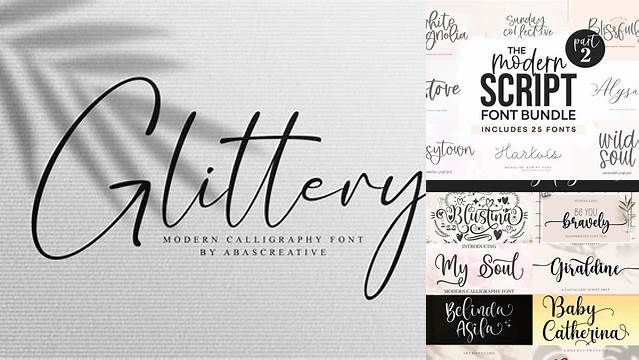
Free Modern Script Fonts: Download Now!
Hey guys! Are you on the hunt for some stunning, free modern script fonts to spice up your design projects? You've landed in the right place! In this article, we're diving deep into the world of modern script fonts, exploring everything from where to find them to how to use them effectively. We'll cover a wide array of subtopics, ensuring you have a comprehensive understanding and a treasure trove of options to choose from. So, grab a cup of coffee, get comfy, and let's get started!
1. What are Modern Script Fonts?
Let's kick things off by understanding exactly what modern script fonts are. These fonts are characterized by their flowing, handwritten style, often mimicking calligraphy or cursive writing. What sets them apart from traditional scripts is their contemporary twist – cleaner lines, unique letterforms, and a generally more stylish and updated feel. Modern script fonts are incredibly versatile, making them a fantastic choice for a variety of design projects, from logos and branding to invitations and social media graphics. They bring a touch of elegance and personality that can really elevate your work. The beauty of modern script fonts lies in their ability to be both eye-catching and readable, a delicate balance that many designers strive for. Whether you're looking for something bold and dramatic or subtle and sophisticated, there's a modern script font out there for you. They're constantly evolving too, with new variations and styles emerging all the time, keeping the design landscape fresh and exciting. Think about how these fonts can transform a simple text-based design into a work of art, adding a human touch and a sense of craftsmanship. That’s the magic of modern script fonts, and it’s why they’re so popular in the design world today.
6. Best Uses for Modern Script Fonts
So, you've got your modern script fonts installed and ready to go – now what? Knowing how to use them effectively is just as important as finding the right font. These fonts excel in a variety of design applications, but they're not a one-size-fits-all solution. They're particularly well-suited for logos, branding, and headings where you want to convey elegance, creativity, or a personal touch. Think wedding invitations, boutique logos, or inspirational quote graphics. They also work beautifully in social media posts and website headers, adding a touch of sophistication. However, modern script fonts can be challenging to read in large blocks of text, so it's generally best to avoid using them for body copy. Pair them with a clean, legible sans-serif font for body text to create a balanced and visually appealing design. Consider the overall tone and message of your project when choosing a modern script font. A delicate, flowing script might be perfect for a wedding invitation, but a bolder, more assertive script might be better suited for a fashion brand logo. Experiment with different sizes, weights, and letter spacing to see what works best for your specific design. Mastering the art of using modern script fonts effectively will elevate your designs and help you communicate your message with style.
7. Pairing Modern Script Fonts with Other Fonts
Pairing fonts is an art form in itself, and it's crucial for creating visually harmonious and effective designs. When working with modern script fonts, the key is to choose a secondary font that complements the script without overpowering it. Generally, sans-serif fonts are a safe bet for pairing with modern script fonts. Their clean, simple lines provide a nice contrast to the flowing, decorative script. Think about pairing a delicate script with a classic sans-serif like Open Sans or Montserrat. For a bolder script, you might consider a slightly more robust sans-serif like Roboto or Lato. Serif fonts can also work in some cases, but it's important to choose a serif that isn't too ornate or distracting. A simple serif like Merriweather or Playfair Display can pair beautifully with a modern script, creating a sophisticated and balanced look. Avoid pairing two very decorative fonts together, as this can create a cluttered and overwhelming design. The goal is to create a visual hierarchy, where the script font serves as the focal point and the secondary font provides support and readability. Experiment with different font pairings until you find a combination that feels just right for your project. Remember, the best font pairings enhance the overall message and aesthetic of your design.
8. Using Modern Script Fonts in Logos
Logos are a fantastic place to showcase the elegance and personality of modern script fonts. A well-chosen script font can give a logo a unique and memorable touch, conveying a sense of sophistication, creativity, or personal connection. Think about luxury brands, boutique businesses, or creative professionals – these are the types of logos where a modern script font can truly shine. However, it's crucial to use script fonts thoughtfully in logo design. Readability is paramount, so make sure the script is clear and easy to understand, even at smaller sizes. Avoid overly ornate or complex scripts that might become illegible when scaled down. Consider the overall brand identity and choose a script that aligns with the brand's values and personality. A delicate, flowing script might be perfect for a wedding planner, while a bolder, more assertive script might be better suited for a fashion brand. Think about how the script interacts with other elements of the logo, such as icons or taglines. Pair the script with a clean, legible sans-serif font for any supporting text to ensure clarity. Remember, a logo is the face of a brand, so it's essential to choose a font that makes a positive and lasting impression. When used effectively, modern script fonts can elevate a logo and help it stand out from the crowd.
9. Modern Script Fonts for Branding
Beyond logos, modern script fonts play a significant role in overall branding. They can be used across various touchpoints to create a cohesive and memorable brand identity. Think about how a consistent use of a particular script font can reinforce a brand's personality and values, from website headers and social media graphics to business cards and marketing materials. When using modern script fonts for branding, consider the overall tone and message you want to convey. Is your brand elegant and sophisticated? Fun and playful? Modern and edgy? Choose a script font that aligns with these qualities. Think about how the script will interact with other visual elements, such as colors, images, and logos. Consistency is key, so establish clear guidelines for how and where the script font should be used across different platforms and materials. Consider the readability of the script in different contexts, and make sure it's always clear and legible. Pair the script with a complementary font for body text and other supporting elements to create a balanced and harmonious look. Remember, branding is about creating a consistent and recognizable identity, and modern script fonts can be a powerful tool in achieving this goal. By using them thoughtfully and strategically, you can elevate your brand and make a lasting impression on your audience.
10. Designing Wedding Invitations with Script Fonts
Wedding invitations are a classic application for modern script fonts. These fonts evoke a sense of elegance, romance, and celebration, making them a perfect choice for setting the tone for a special day. A beautiful script font can transform a simple invitation into a cherished keepsake. When designing wedding invitations with modern script fonts, consider the overall style of the wedding. A delicate, flowing script might be perfect for a traditional or classic wedding, while a bolder, more modern script might be better suited for a contemporary celebration. Think about the colors and other design elements you're using, and choose a script that complements them. Ensure the script is legible, especially for important details like the date, time, and location. Pair the script with a clean, readable font for the body text and other supporting information. Consider using different weights or sizes of the script to create visual hierarchy and highlight key elements. Don't be afraid to experiment with different layouts and compositions to create a unique and memorable invitation. Adding embellishments like flourishes or illustrations can further enhance the elegance of the design. Remember, a wedding invitation is the first impression guests will have of the wedding, so it's important to make it a beautiful and meaningful one. Modern script fonts can help you achieve this, adding a touch of sophistication and personality to your special day.
11. Using Script Fonts in Social Media Graphics
Social media is a visually driven platform, and modern script fonts can be a fantastic way to make your graphics stand out. They add a touch of personality and elegance that can capture attention in a busy feed. Think about using script fonts for quotes, headlines, or branding elements in your social media posts. When using modern script fonts in social media graphics, consider the overall aesthetic of your brand and the platform you're using. A delicate, flowing script might be perfect for Instagram, while a bolder script might be better suited for Facebook or Twitter. Ensure the script is legible, especially on smaller screens. Use a contrasting color to make the script stand out against the background. Pair the script with a clean, readable font for any supporting text. Consider using animation or motion graphics to add visual interest to your script fonts. Experiment with different layouts and compositions to create eye-catching graphics. Remember, social media is about engaging your audience, and modern script fonts can help you do just that. By using them effectively, you can create visually appealing content that captures attention and reinforces your brand message.
12. Free Calligraphy Script Fonts
When we talk about modern script fonts, it's hard not to think about calligraphy. Calligraphy-inspired scripts are a popular choice for adding an elegant and handcrafted touch to designs. The good news is, there are plenty of free calligraphy script fonts available that can give you that beautiful, hand-lettered look without breaking the bank. These fonts often feature flowing strokes, elegant flourishes, and a sense of traditional artistry. They're perfect for wedding invitations, logos, headings, and any design that needs a touch of sophistication. When searching for free calligraphy script fonts, be sure to check the licensing terms, as some may be free for personal use only. Websites like Google Fonts, Font Squirrel, and DaFont are great places to start your search. Look for keywords like "calligraphy," "handwritten," or "brush script" to narrow down your options. Remember to consider the readability of the font, especially if you're using it for body text. Pair it with a clean, simple font for a balanced look. With a little searching, you can find a beautiful free calligraphy script font that perfectly captures the elegance and artistry you're looking for.
13. Elegant Script Fonts for Free
For projects that demand a touch of sophistication and grace, elegant script fonts are the way to go. These fonts often feature delicate strokes, graceful curves, and a timeless appeal. The best part? You don't have to spend a fortune to access these beauties. There are numerous elegant script fonts for free that can elevate your designs without emptying your wallet. These fonts are ideal for wedding invitations, logos, branding, and any project where you want to convey a sense of refinement and luxury. When searching for elegant script fonts, consider the overall style and tone of your project. A flowing, cursive script might be perfect for a romantic wedding invitation, while a more structured script might be better suited for a high-end brand logo. Pay attention to the details, such as the thickness of the strokes, the presence of flourishes, and the overall legibility of the font. Pair your elegant script with a clean, simple font for a balanced and sophisticated look. Remember to check the licensing terms before using any font, especially for commercial projects. With a little effort, you can find the perfect free elegant script font to add a touch of class to your designs.
14. Free Handwritten Script Fonts
If you're aiming for a personal and approachable feel, free handwritten script fonts are an excellent choice. These fonts mimic the look of actual handwriting, adding a human touch to your designs. They're perfect for projects where you want to convey warmth, authenticity, and a sense of informality. Think of social media graphics, blog headers, or personalized cards. There are tons of free handwritten script fonts available online, ranging from casual and playful to elegant and refined. When selecting a handwritten script font, consider the overall tone of your project and the message you want to convey. A messy, informal script might be great for a blog about everyday life, while a more polished script might be better suited for a small business website. Pay attention to the legibility of the font, as some handwritten scripts can be difficult to read, especially in large blocks of text. Pair your handwritten script with a clean, simple font for body text to ensure readability. Don't be afraid to experiment with different styles and weights to find the perfect fit for your project. With the right free handwritten script font, you can add a personal touch to your designs and connect with your audience on a deeper level.
15. Bold Script Fonts Free
Sometimes, you need a font that makes a statement. That's where bold script fonts come in. These fonts have a strong, confident presence, making them perfect for headlines, logos, and other design elements where you want to grab attention. And guess what? You can find some fantastic bold script fonts free of charge! These fonts often feature thick strokes, strong curves, and a generally impactful design. They're ideal for projects where you want to convey energy, excitement, or a sense of authority. Think of branding for a fitness studio, a restaurant logo, or a social media campaign. When choosing a bold script font, consider the overall style of your project and the message you want to send. A bold script can be a powerful tool, but it's important to use it judiciously. Avoid using it for large blocks of text, as it can be overwhelming and difficult to read. Pair your bold script with a clean, simple font for body text to create a balanced look. Experiment with different sizes and weights to find the perfect balance. With the right free bold script font, you can make a big impact and create designs that truly stand out.
16. Cursive Script Fonts for Free
Cursive script fonts are another popular choice for adding elegance and flow to your designs. These fonts mimic the look of cursive handwriting, with connected letters and graceful curves. The good news is, there's a wide variety of cursive script fonts for free available online, making it easy to add this classic style to your projects without spending a dime. Cursive scripts are perfect for wedding invitations, logos, headings, and any design where you want to convey a sense of sophistication and artistry. When selecting a cursive script font, consider the overall tone of your project and the message you want to convey. A delicate, flowing cursive might be perfect for a wedding invitation, while a bolder cursive might be better suited for a logo. Pay attention to the legibility of the font, as some cursive scripts can be difficult to read, especially in large blocks of text. Pair your cursive script with a clean, simple font for body text to ensure readability. Experiment with different weights and styles to find the perfect fit for your project. With a beautiful free cursive script font, you can add a touch of timeless elegance to your designs.
17. Unique Modern Script Fonts Free
Tired of the same old fonts? Looking for something that truly stands out? Then you're in the right place! There are tons of unique modern script fonts available for free that can add a special touch to your projects. These fonts often feature unexpected letterforms, creative flourishes, and a generally distinctive style. They're perfect for designs where you want to break the mold and make a lasting impression. Think of branding for a creative agency, a website header, or a social media campaign. When searching for unique modern script fonts free, be open to exploring different styles and approaches. Look for fonts that incorporate interesting details or unconventional shapes. Consider the overall tone of your project and choose a font that aligns with your message. Pay attention to the legibility of the font, as some unique scripts can be challenging to read, especially in large blocks of text. Pair your unique script with a clean, simple font for body text to ensure readability. Don't be afraid to experiment and have fun with it! With a little searching, you can find a free unique modern script font that truly sets your designs apart.
18. Free Script Fonts for Commercial Use
If you're using fonts for business purposes, it's crucial to ensure they're licensed for commercial use. The good news is, there's a wealth of free script fonts for commercial use available online, allowing you to create professional-quality designs without worrying about licensing fees. These fonts can be used in logos, branding materials, websites, and any other project where you're generating revenue. When searching for free script fonts for commercial use, pay close attention to the licensing terms. Look for phrases like "free for commercial use" or "100% free." Websites like Font Squirrel and Google Fonts are excellent resources for finding fonts with clear commercial licenses. DaFont also has a large selection, but be sure to check the individual license for each font. Consider the overall style of your project and choose a script font that aligns with your brand's identity. Ensure the font is legible, especially in logos and branding materials. Pair your script font with a clean, simple font for body text to create a balanced look. Remember, using fonts legally is essential for professional design. With the right free script font for commercial use, you can create stunning designs that are both beautiful and compliant.
19. Best Free Script Fonts for Logos
Logos are a crucial part of branding, and choosing the right font is essential. Free script fonts for logos can add a touch of personality and elegance, making your brand stand out. A well-chosen script can convey a sense of sophistication, creativity, or personal connection. When selecting a best free script fonts for logos, consider your brand's identity and target audience. A delicate, flowing script might be perfect for a wedding planner, while a bolder script might be better suited for a fashion brand. Ensure the script is legible, even at small sizes. Logos need to be versatile and readable across various platforms and sizes. Avoid overly ornate or complex scripts that might become illegible when scaled down. Consider how the script interacts with other elements of the logo, such as icons or taglines. Pair the script with a clean, legible font for any supporting text. Remember, your logo is the face of your brand, so it's important to choose a font that makes a positive and lasting impression. With the right free script font for logos, you can create a memorable and effective brand identity.
20. Free Script Fonts for Websites
Your website's typography plays a significant role in its overall design and user experience. Free script fonts for websites can add a touch of personality and visual interest, but it's crucial to use them strategically. A well-chosen script can enhance your website's branding and make it more memorable. When selecting free script fonts for websites, consider the overall style and tone of your site. A delicate script might be perfect for a wedding photography website, while a bolder script might be better suited for a creative agency. Ensure the script is legible, especially for headlines and calls to action. Readability is paramount for web design. Avoid using script fonts for large blocks of body text, as they can be difficult to read online. Pair your script font with a clean, readable sans-serif font for body text. Consider using different weights and sizes of the script to create visual hierarchy. Optimize your fonts for web use to ensure fast loading times. Remember, your website is your online storefront, so it's important to choose fonts that enhance its design and user experience. With the right free script font for websites, you can create a visually appealing and engaging online presence.
21. Free Script Fonts for Invitations
Invitations are a perfect place to showcase the elegance and beauty of free script fonts for invitations. Whether you're designing wedding invitations, party invites, or special event announcements, a well-chosen script can set the tone for the occasion. When selecting free script fonts for invitations, consider the style and formality of the event. A delicate, flowing script is perfect for wedding invitations, conveying a sense of romance and sophistication. A bolder script might be better suited for a party invitation, creating a more festive and energetic vibe. Ensure the script is legible, especially for important details like the date, time, and location. Avoid overly ornate or complex scripts that might be difficult to read. Pair your script font with a clean, readable font for any supporting text. Consider using different weights and sizes of the script to create visual hierarchy. Experiment with different layouts and compositions to create a unique and memorable invitation. Remember, your invitation is the first impression guests will have of your event, so it's important to make it a special one. With the right free script font for invitations, you can create stunning designs that reflect the occasion and delight your guests.
22. Free Script Fonts for T-Shirts
Designing t-shirts is a fun way to express your creativity, and typography plays a crucial role in the overall design. Free script fonts for t-shirts can add a stylish and personalized touch to your apparel designs. A well-chosen script can make your t-shirt stand out and convey your message effectively. When selecting free script fonts for t-shirts, consider the style and message you want to convey. A bold script might be perfect for a band t-shirt, while a more delicate script might be better suited for a feminine design. Ensure the script is legible, even when printed on fabric. Test your design at different sizes to ensure it remains clear and readable. Avoid overly complex or ornate scripts that might not translate well to fabric. Consider the color of the font and how it will contrast with the t-shirt fabric. Pair your script font with other design elements, such as graphics or illustrations. Remember, your t-shirt is a wearable canvas, so it's important to choose fonts that complement your design and message. With the right free script font for t-shirts, you can create stylish and eye-catching apparel that expresses your unique style.
23. Download Free Modern Script Fonts
Ready to get your hands on some awesome fonts? The good news is, it's super easy to download free modern script fonts! There are tons of websites and resources that offer a wide variety of script fonts for free, allowing you to add a touch of elegance and personality to your designs without spending a dime. When you download free modern script fonts, make sure to use reputable websites like Google Fonts, Font Squirrel, and DaFont. These sites offer a wide selection of high-quality fonts, and they clearly indicate the licensing terms for each font. Before you download, take some time to browse the different styles and find fonts that match your design aesthetic. Think about the projects you'll be using the fonts for, and choose scripts that are legible and versatile. Once you've found a font you love, simply click the download button and follow the instructions to install it on your computer. Remember to always check the licensing terms before using a font in a project, especially if it's for commercial purposes. With a little searching, you can download free modern script fonts that will elevate your designs and help you express your creativity.
24. Modern Calligraphy Fonts Free Download
If you're looking for a touch of elegance and artistry, modern calligraphy fonts free download is the way to go. These fonts combine the beauty of traditional calligraphy with a contemporary twist, creating a unique and stylish look. When you opt for a modern calligraphy fonts free download, you're getting access to fonts that feature flowing strokes, graceful curves, and a handcrafted feel. These fonts are perfect for wedding invitations, logos, headings, and any design where you want to convey a sense of sophistication and artistry. Websites like Google Fonts, Font Squirrel, and DaFont offer a wide selection of modern calligraphy fonts free download, allowing you to explore different styles and find the perfect fit for your project. Before you download, consider the overall tone of your design and choose a font that aligns with your message. Ensure the font is legible, especially if you're using it for body text. Pair your calligraphy font with a clean, simple font for a balanced look. With a little searching, you can find a modern calligraphy fonts free download that will add a touch of timeless elegance to your designs.
25. Free Script Fonts for Cricut
For all you Cricut crafters out there, finding the right fonts is essential for creating beautiful and personalized projects. Free script fonts for Cricut are a fantastic way to add a touch of elegance and personality to your designs, whether you're making cards, labels, or home décor items. When searching for free script fonts for Cricut, consider the complexity of the font and how well it will cut with your machine. Avoid overly intricate or delicate scripts that might be difficult to cut and weed. Look for fonts with clean lines and smooth curves that will produce crisp and precise cuts. Websites like DaFont and Font Bundles often have sections dedicated to Cricut-friendly fonts. Before you download, consider the project you're working on and choose a script that fits the style and message. Test your font in Cricut Design Space before cutting to ensure it looks the way you want it to. With the right free script fonts for Cricut, you can create stunning and personalized crafts that showcase your creativity.
26. Best Free Modern Script Fonts 2024
Staying up-to-date with the latest design trends is crucial, and that includes knowing the best free modern script fonts 2024. The design world is constantly evolving, and new fonts are being released all the time. Keeping an eye on the best free modern script fonts 2024 will ensure your designs stay fresh and relevant. Some trends to look out for include bold and expressive scripts, fonts with a vintage or retro feel, and scripts that incorporate unique ligatures and flourishes. Websites like Creative Market, Behance, and Dribbble are great places to discover new and trending fonts. Design blogs and articles often feature roundups of the best free modern script fonts 2024, so be sure to check those out as well. Remember to consider the overall style and tone of your projects when choosing a font. The best font is one that not only looks good but also effectively communicates your message. By staying informed about the latest trends, you can ensure your designs are always on point.
27. Free Modern Script Fonts for Procreate
Procreate is a powerful tool for digital artists, and choosing the right fonts is essential for creating stunning typography and lettering. Free modern script fonts for Procreate can add a touch of elegance and personality to your digital artwork, whether you're designing illustrations, logos, or social media graphics. When searching for free modern script fonts for Procreate, consider how well the font will work within the Procreate app. Some fonts may be better suited for digital use than others. Look for fonts with clean lines and smooth curves that will look crisp and clear on the screen. Websites like Creative Fabrica and Font Bundles often have free font sections that include fonts compatible with Procreate. Once you've downloaded a font, you can easily import it into Procreate and start using it in your designs. Experiment with different sizes, colors, and effects to create unique and eye-catching typography. With the right free modern script fonts for Procreate, you can elevate your digital artwork and create stunning designs that stand out.
28. How to Use Free Modern Script Fonts Effectively
Finding the perfect font is only half the battle; knowing how to use free modern script fonts effectively is just as important. These fonts can add a touch of elegance and personality to your designs, but they need to be used strategically to create a harmonious and impactful visual. One key tip for how to use free modern script fonts effectively is to consider legibility. Script fonts, especially more ornate ones, can be challenging to read in large blocks of text. It's generally best to reserve them for headlines, logos, and other design elements where you want to make a statement. Pair your script font with a clean, readable sans-serif font for body text to ensure your message is clear and easy to understand. Think about the overall tone and message of your design. A delicate, flowing script might be perfect for a wedding invitation, while a bolder script might be better suited for a branding project. Experiment with different sizes, weights, and letter spacing to achieve the desired effect. Don't be afraid to play around and try new things! With a little practice, you'll master the art of how to use free modern script fonts effectively and create designs that are both beautiful and impactful.
29. Common Mistakes to Avoid When Using Script Fonts
Script fonts are beautiful, but they can also be tricky to use effectively. Knowing the common pitfalls is crucial for creating designs that are both stylish and functional. One of the most common mistakes is overusing script fonts. While they can add a touch of elegance, using too many script fonts in one design can create a cluttered and overwhelming look. Another common mistake is using script fonts for large blocks of text. Script fonts are generally not as legible as sans-serif or serif fonts, so they're best reserved for headings and short phrases. Poor font pairing is another frequent error. Pairing two overly decorative fonts together can create a visual clash. It's generally best to pair a script font with a clean, simple font for a balanced look. Neglecting font size and spacing can also impact legibility. Make sure your script font is large enough to read easily, and adjust the letter spacing as needed to prevent it from looking too cramped or too spaced out. By avoiding these common mistakes, you can use script fonts effectively and create designs that are both beautiful and functional.
30. The Future of Modern Script Fonts
What does the future hold for modern script fonts? As design trends continue to evolve, so too will the world of typography. It's likely that we'll see even more innovative and creative script fonts emerge in the coming years, pushing the boundaries of what's possible. One trend to watch is the integration of technology into font design. We may see more fonts that incorporate variable font technology, allowing for greater flexibility and customization. Another trend is the blurring of lines between different font styles. We may see more script fonts that blend elements of calligraphy, handwriting, and even sans-serif styles. The rise of digital art and animation is also likely to influence the future of script fonts. We may see more fonts that are designed specifically for use in motion graphics and digital artwork. As always, legibility and functionality will remain key considerations. While designers will continue to experiment with new styles and techniques, the best script fonts will be those that are both beautiful and easy to read. The future of modern script fonts is exciting, and it's sure to bring even more creative possibilities to the world of design. So, keep an eye out for the latest trends and innovations, and get ready to explore the ever-evolving world of script fonts!